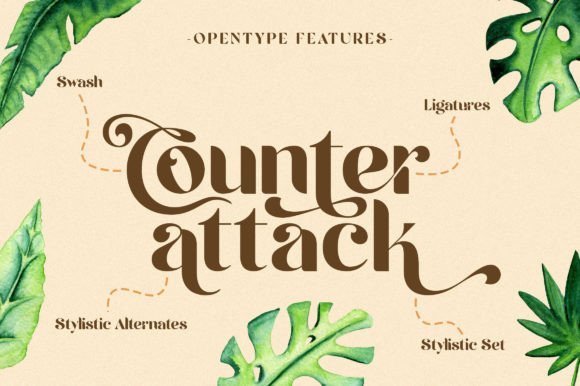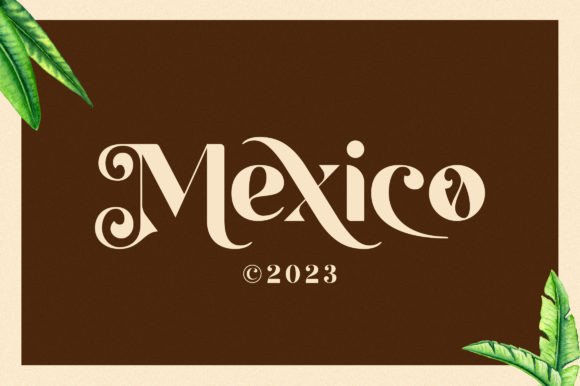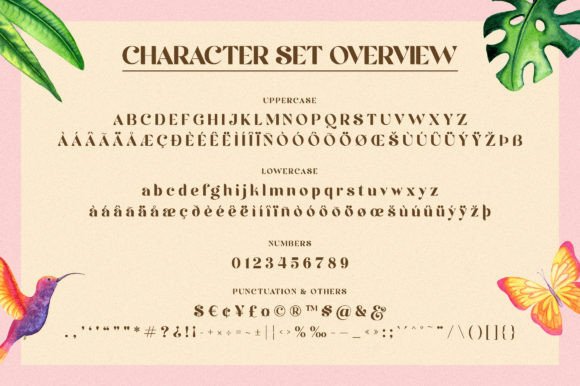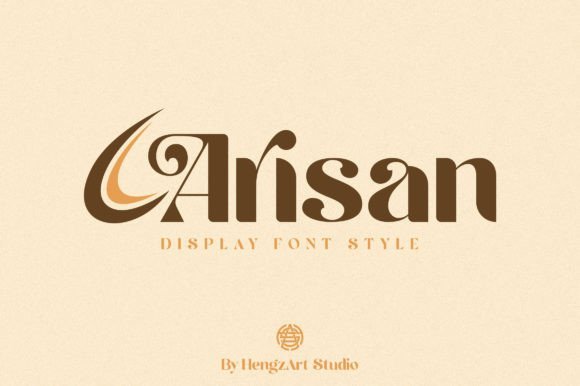
Introduction to Arisan Font
Arisan feels playfully nostalgic and delivers an incredible vintage aesthetic.
Use this serif font to add that special retro touch to any design idea you can think of Masterfully designed to become a true favorite, this font has the potential to bring each of your creative ideas to the highest level.
Key Features of Arisan Font
Why Choose Arisan Font?